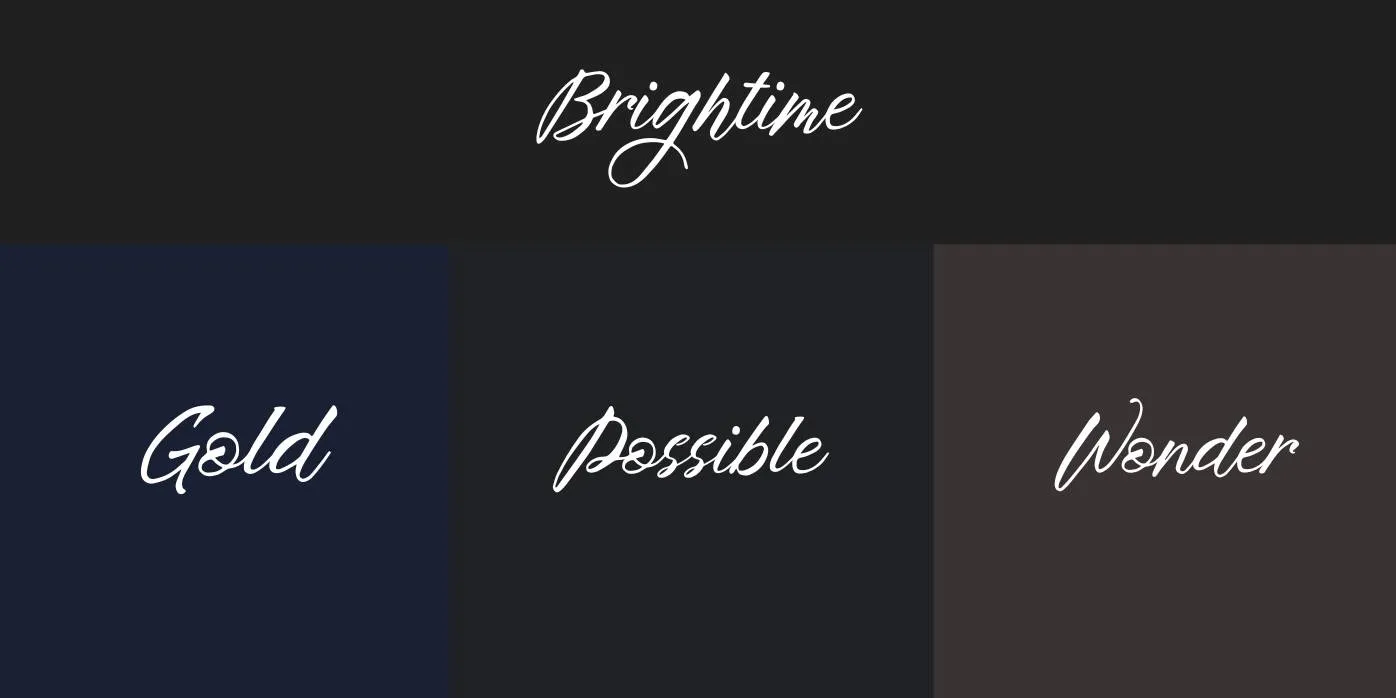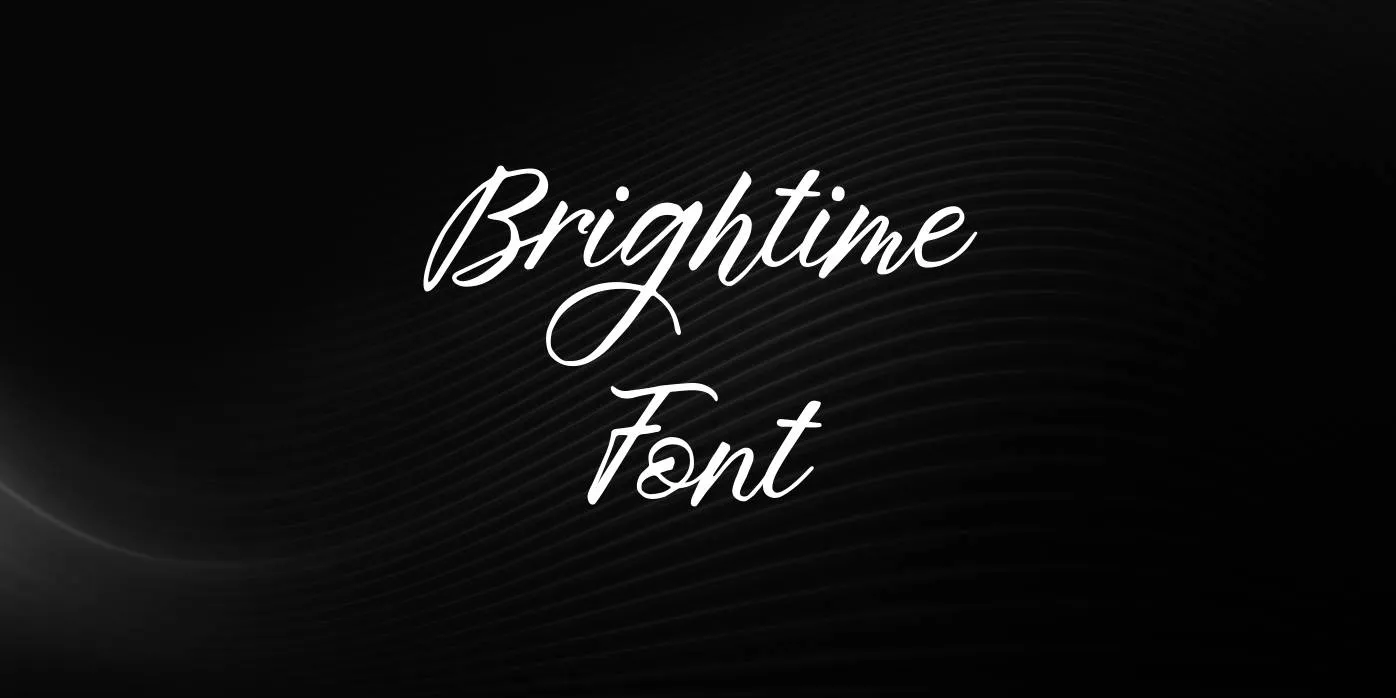
Brightime Font
Brightime Font is a script typeface designed by a very famous font studio named Stripes Studio. This is a script typeface inspired by Renaissance calligraphy, and it can be downloaded in both TTF and OTF file formats. The typeface is includes various features to improve legibility such as thin strokes, proportionally spaced characters and joining letters. The Font was very popular in Germany and Switzerland in the early 20th century and was used by many famous designers.